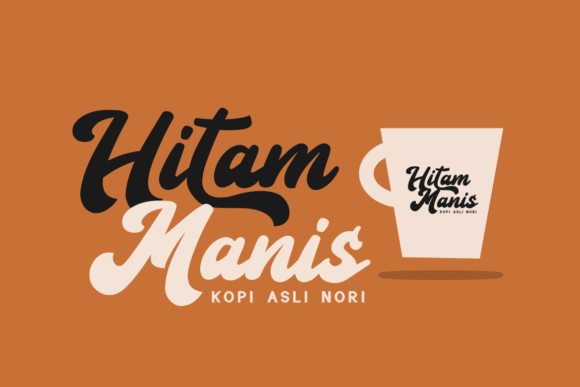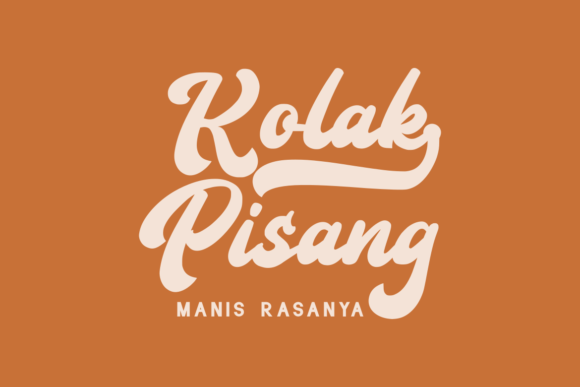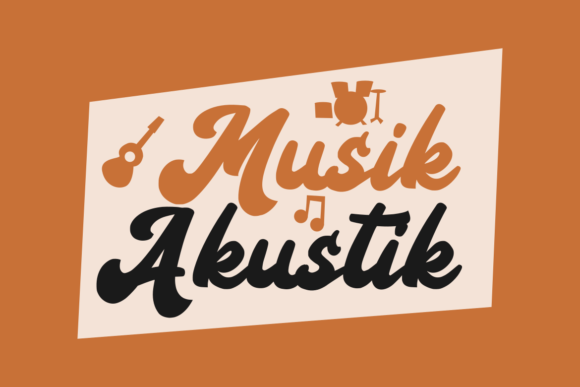
Introduction to Medang Font
Do you ever find yourself rummaging through your design files, searching for the perfect font to give your creative project that extra oomph? You know, that magical font that transports your audience back to a bygone era, evoking memories of vintage summers and handwritten love letters? For designers, finding the right font can be a game-changer – and that’s exactly where the Medang Font comes in.
This stunning retro script font is a treasure trove of design goodness, packed with high-quality glyphs and ligatures that will elevate any project to new heights. With its PUA encoding, accessing these amazing features is a breeze, making it a valuable resource for designers who crave precision and creativity. Whether you’re working on a free download or a commercial project, Medang Font is sure to become your go-to design companion.
Key Features of Medang Font
- High-quality, vector-based font design ideal for creative projects requiring a unique touch.
- Designed with a focus on readability and aesthetic appeal, ensuring effective communication in various contexts.
- Perfect for digital and print media, including websites, social media, advertising, and marketing materials.
Honest Review: Medang Font
One of the standout features of Medang Font is its versatility. I’ve used it for a variety of design projects, from logos to social media graphics, and it looks great every time. The transparent background makes it easy to customize and layer with other design elements.
Here are some of the things I like about Medang Font:
- ✨ High-quality design that looks great at any size
- ✨ Versatile and easy to use
Of course, no font is perfect, and I do have a few limitations to mention:
- ⚠️ Limited character set may not be suitable for complex text-based projects
- ⚠️ May not be as customizable as some other fonts
Overall, I’m very impressed with the Medang Font. It’s a solid choice for any creative project, and I’m excited to see where it takes my designs.
Design Tips and Tricks
To get the most out of the Medang Font, use it on a transparent background to create a seamless and modern design. Experiment with different font sizes, colors, and combinations to find the perfect look for your creative project.
The Medang Font is ideal for various design projects, including logos, business cards, brochures, and social media graphics. Its high-quality design and versatility make it a valuable design resource for any creative project.